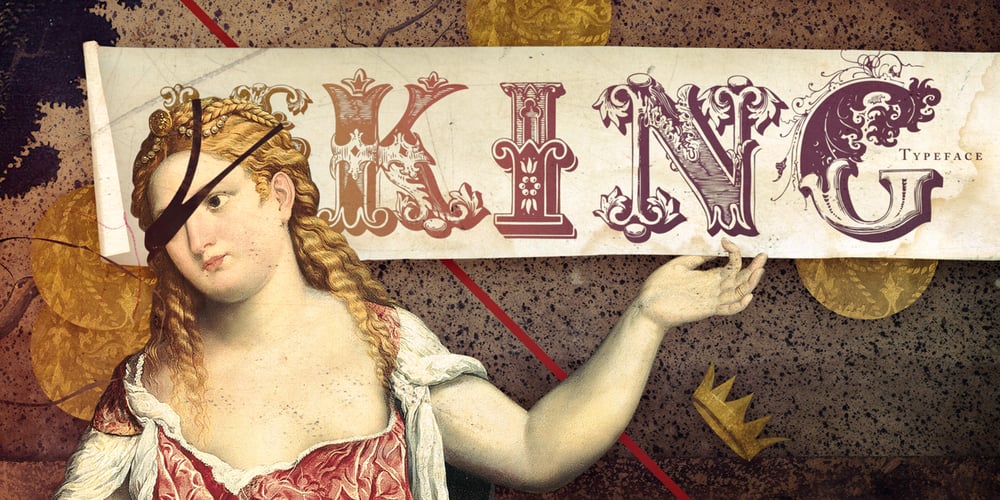
LeKing Font Family was designed by Eduardo Recife and published by Misprinted Type. LeKing contains 1 styles and family package options. LeKing is a Frankenstein of vintage ornamental typefaces of the past centuries. Each character is a collage of different bits of different letters. The font has the classic elegant feel of the old ornamental typefaces, combined with a modern and edgy feel. It has 2 uppercase variations, so you can mix letters without repeating them or find the exact type that suits your needs. Le King also comes with an EPS file with 24 vector ornaments! Enjoy!